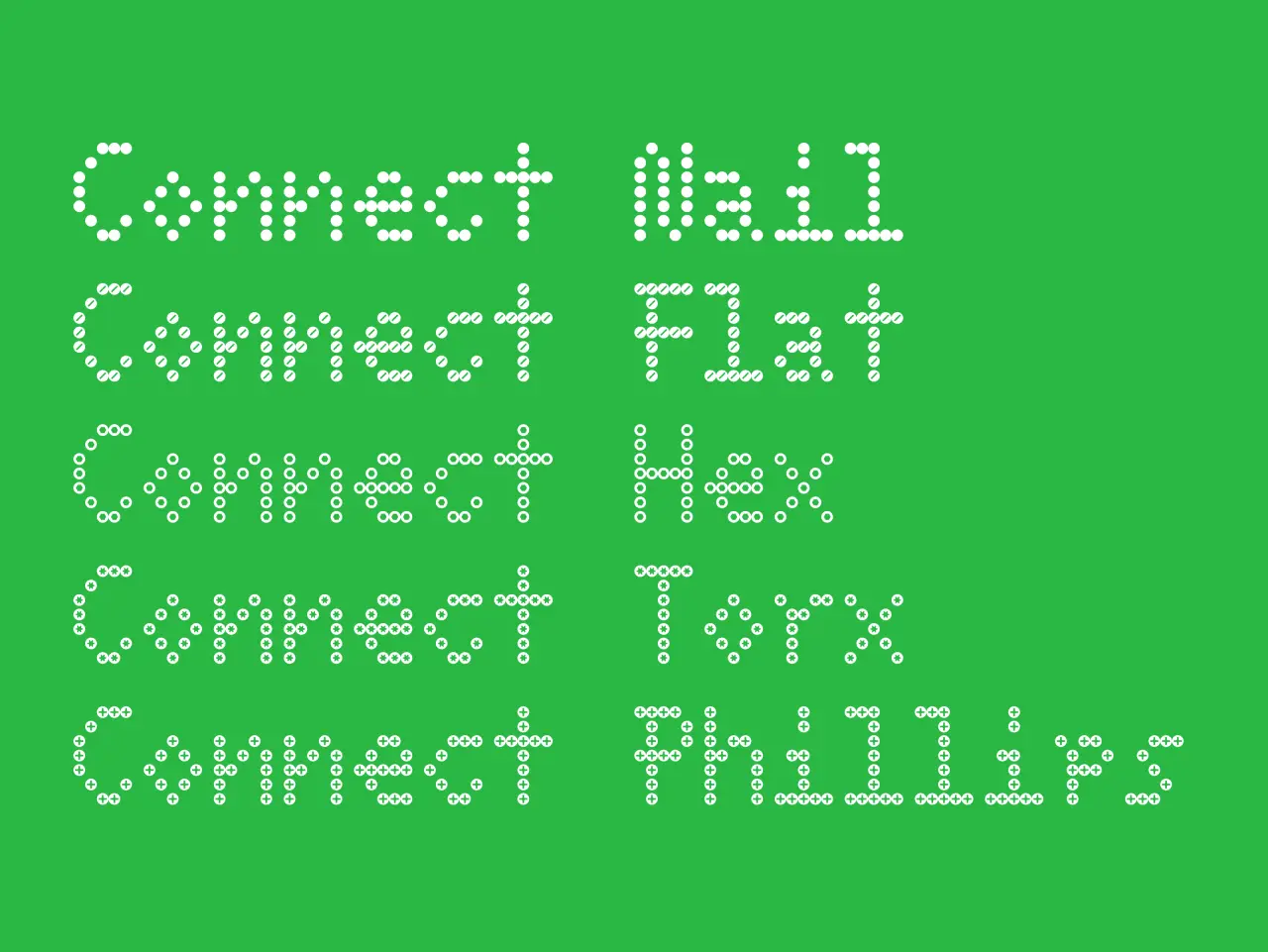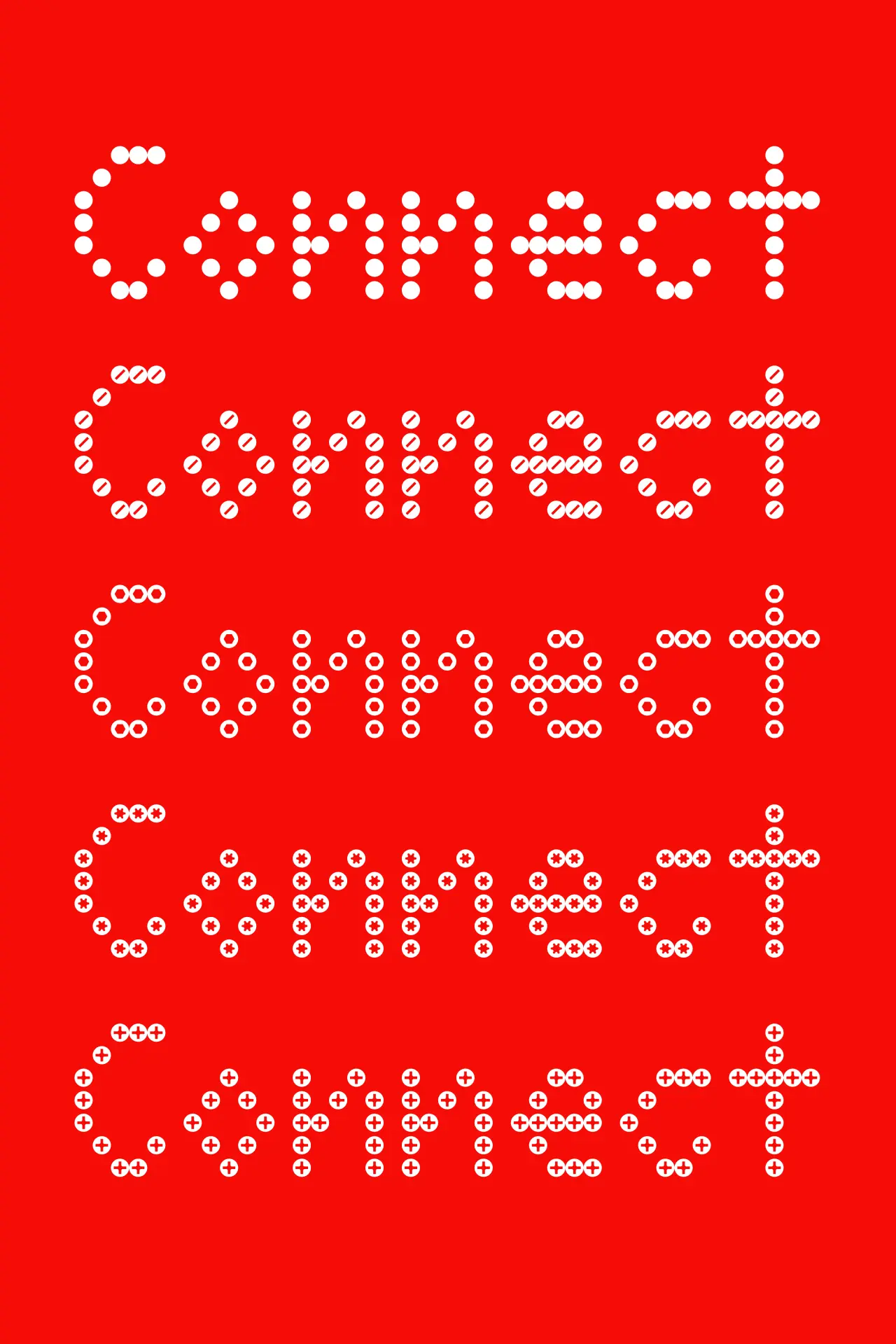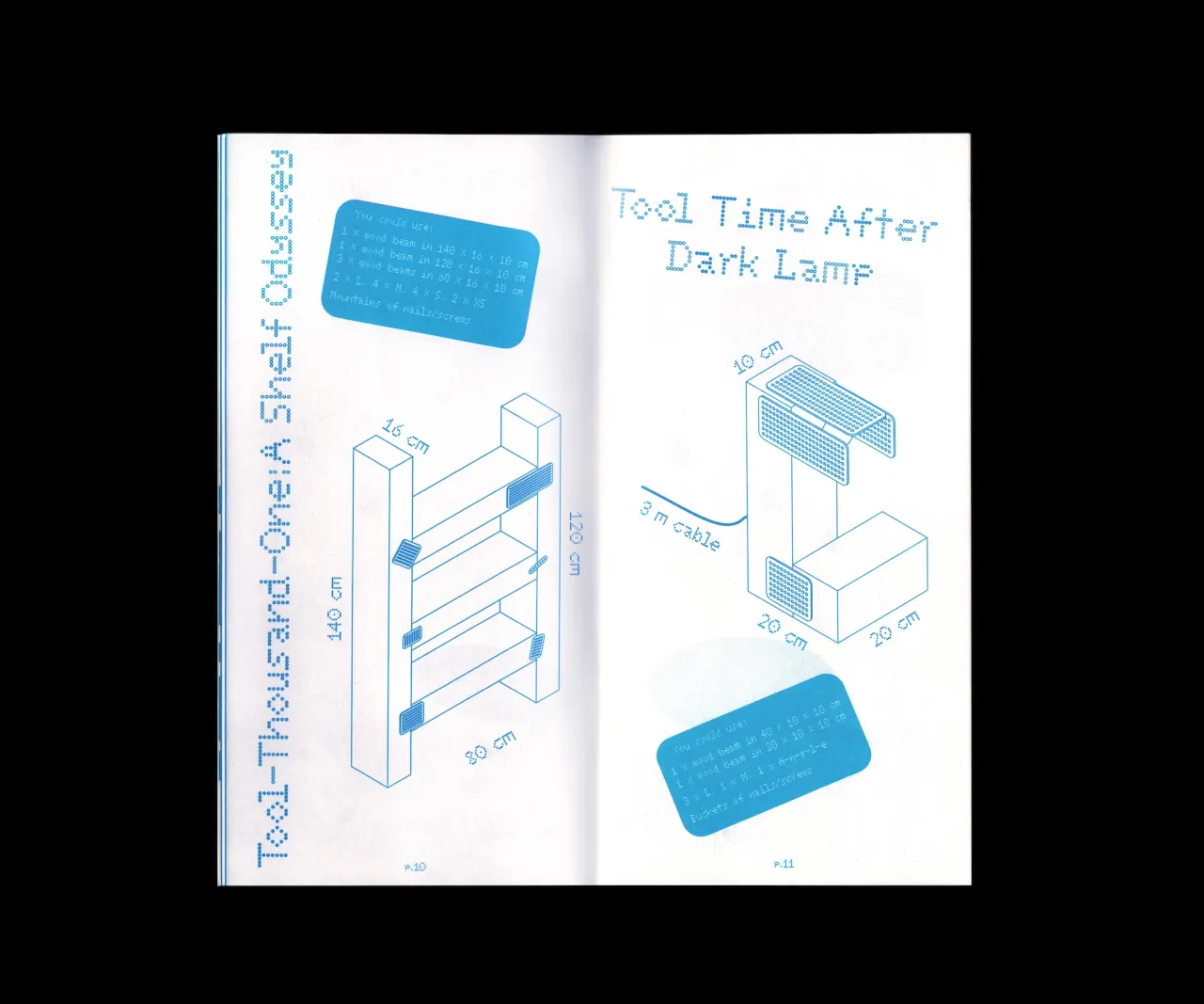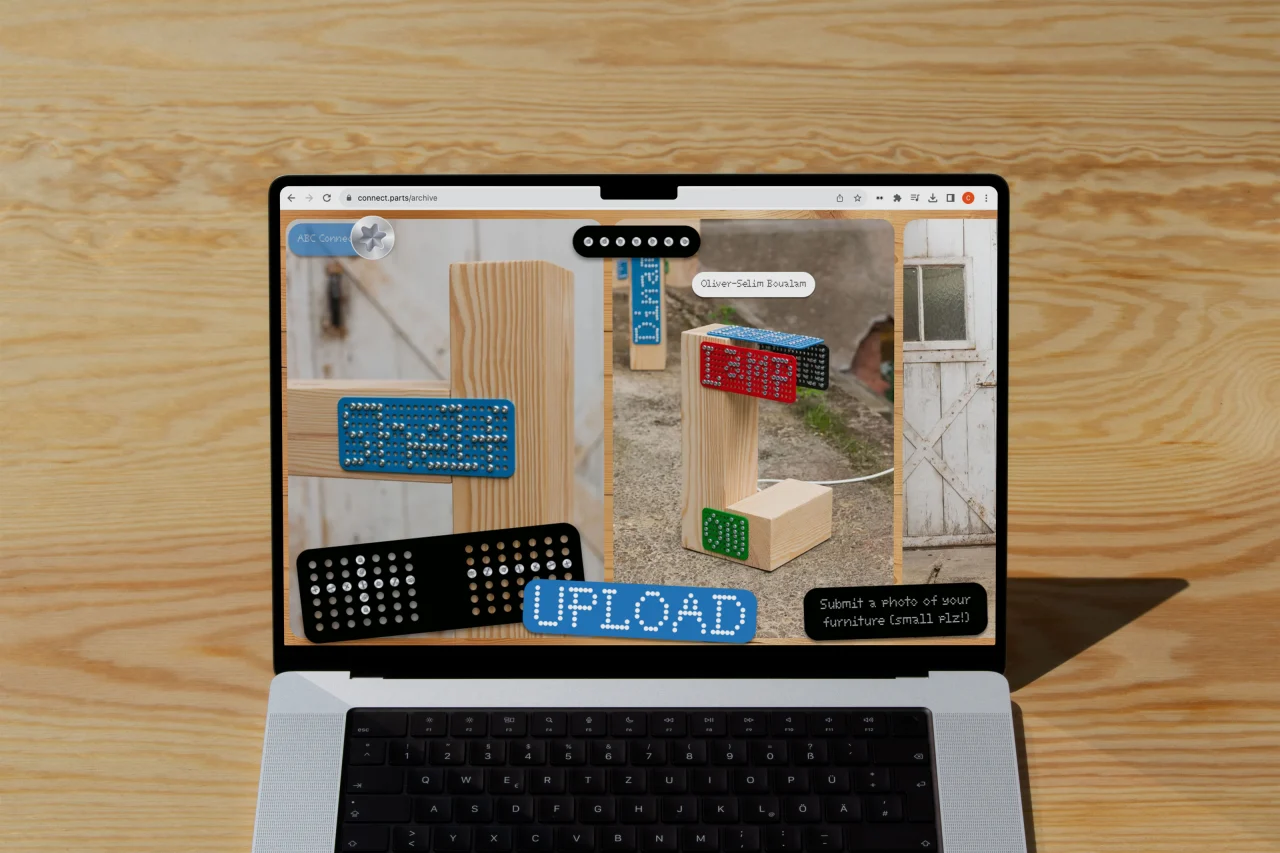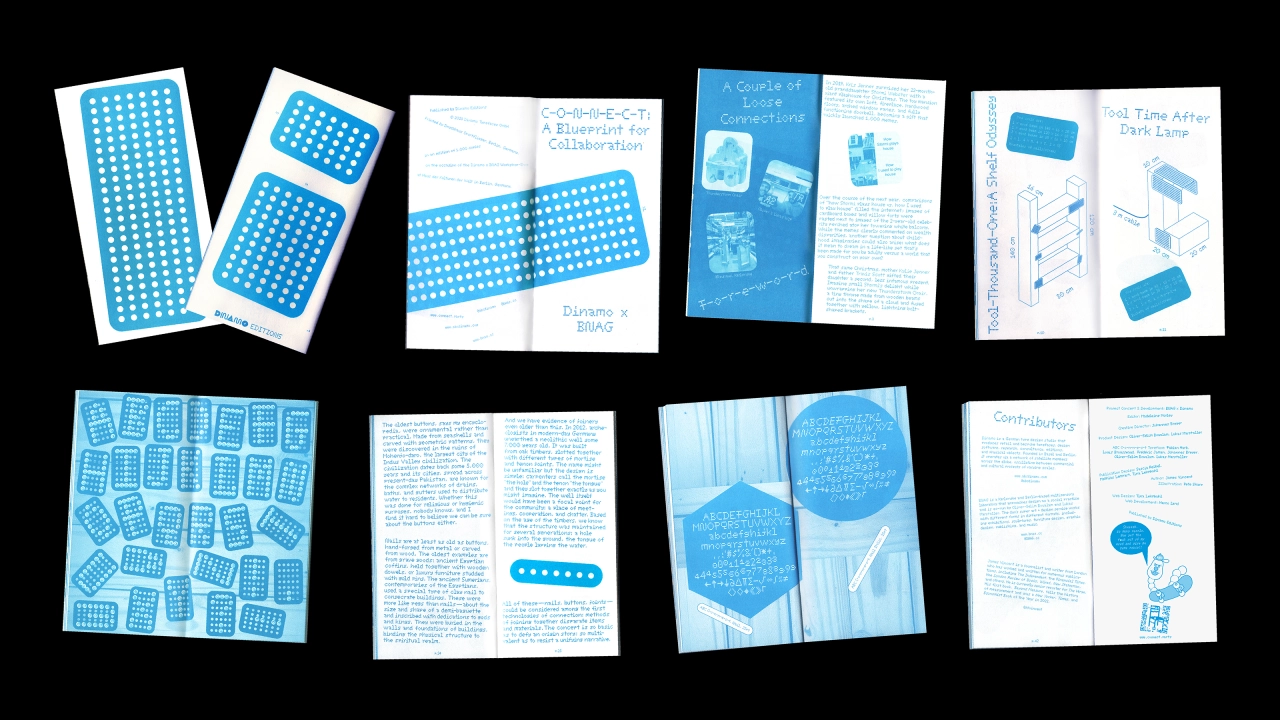
Type foundry Dinamo creates riveting new dot font based on furniture screws
German type foundry Dinamo has collaborated with art and design studio BNAG to create a new dot matrix font that works hand-in-hand with their new line of spontaneous metal furniture brackets.
Most furniture is specially designed to carefully hide its inner workings. Smooth surfaces and sharp corners cleverly hide the screws working away beneath the surface, keeping the whole structure together. And while this results in beautiful, functional items, is it robbing people of something more fun and personal?
According to design studio BNAG, the answer is yes. To combat this, they've launched a range of easy-to-use metal brackets called ABC C-o-n-n-e-c-t-o-r-s. These furniture-making tools help DIY designers to join pieces of wood together to their heart's content and produce personalised objects that wear the screws on their sleeves.
It's a fun, quirky project that will appeal to adults who never grew out of Lego or Mechano. The brightly coloured brackets take the edge of exposed rivets, and the grid system of screw holes allows people to jazz up their constructions with letters and images.
But a fun product needs a fun font, and that's exactly what type foundry Dinamo has delivered. Using the brackets as their blueprint, Dinamo has produced ABC C-o-n-n-e-c-t, a dot matrix font which spells out letter shapes with rows of dotted screwheads.
More than just a gimmick, ABC C-o-n-n-e-c-t packs a lot of functionality you would expect from a new font. It's available in five styles inspired by different types of screws – including Flat, Torx, Hex, Nail, and Philips – as well as monospaced and proportional variants. It may also be the world's first Italic dot font.
As well as the font itself, a special accompanying zine which shows off its potential has been released by Dinamo Editions. This zine also "explores the meaning of physical connection in our networked times", thanks to an essay by author and technology journalist James Vincent, as well as explaining to readers how to use the brackets and screws to create letterforms.
The fun and interactivity don't end there, either. Dinamo has also set up a website where people can share their experiences with the ABC C-o-n-n-e-c-t font and explore community designs.
Designed by Dinamo graphic designer Tina Lehmkuhl and developed by creative coder Marco Land, this platform is something of a throwback to the good old days of the web, where sites were more personal and whacky, which is perfectly in keeping with the ABC C-o-n-n-e-c-t-o-r-s themselves.